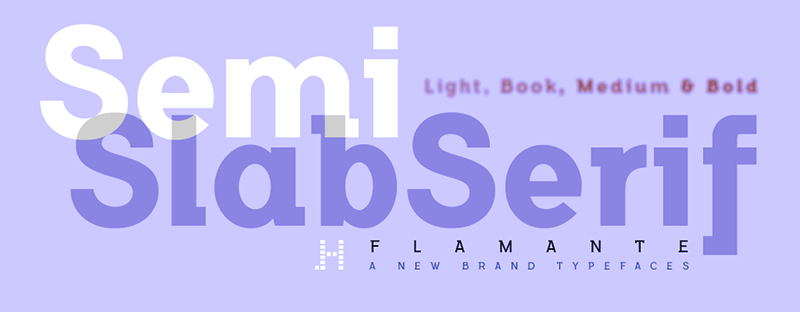
Flamante SemiSlab is a family of eight typefaces with thick square serifs and SemiSerif finish are presented in four weights: Light, Book, Medium and Bold and their corresponding italic versions. They are exclusive types, corporate, for any type of advertising design project, catalogs, logos, advertising, magazines or publications in general. They include the Bitcoin symbol. |